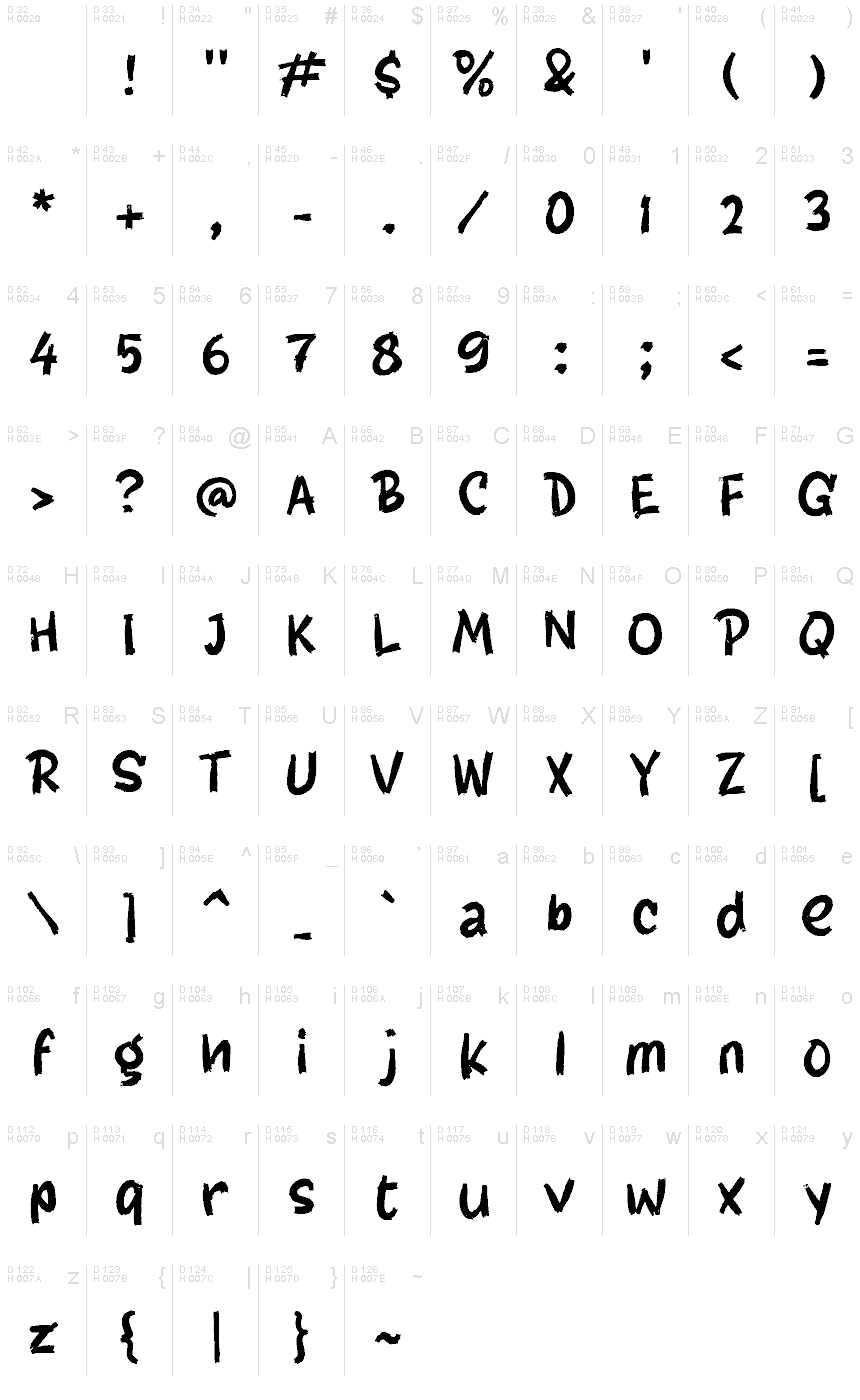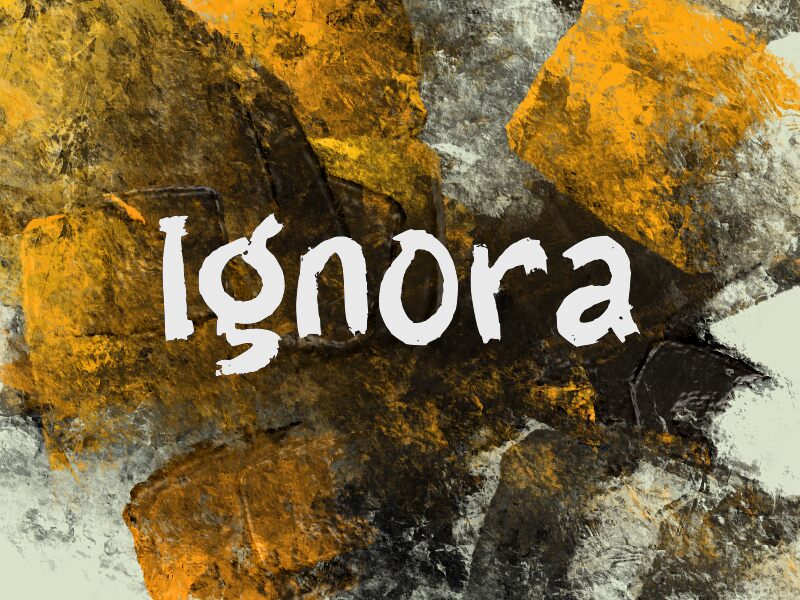
Ignora
Ignora font by wep exhibits an organic feel with a rustic charm and a subtle touch of an artistic flair. This calligraphy free font thus achieves a modern look while keeping the handcrafted appearance largely present. With its expressive tones, Ignora will set the mood in every design to speak to your target audience exactly as you need it to.
Use it for handmade or DIY projects, gardening books and magazines, environmental articles, nature-related content writing, packaging design of natural foods or cosmetics, cafes’ visual identity (menus/signs/business cards/coasters), cafes branding elements design (menus/ signs/ business cards/ coasters).